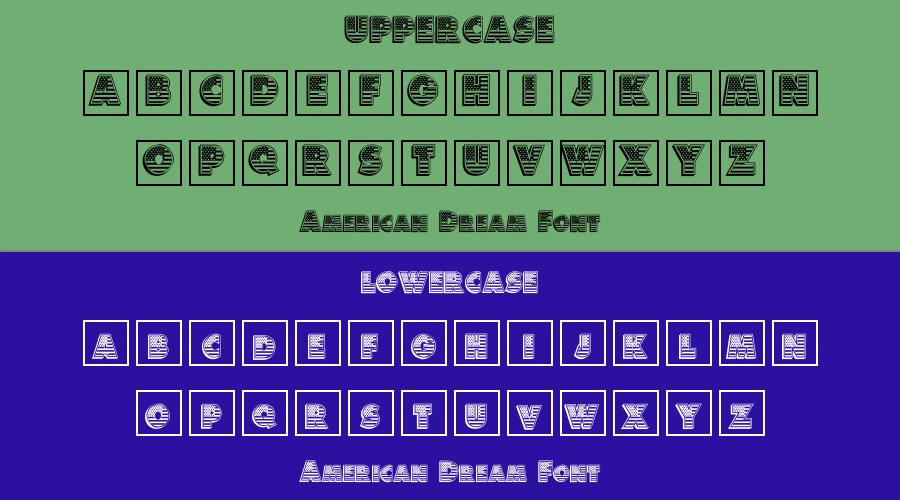
About American Dream Font
American Dream Font embodies typographic excellence through its masterful combination of artistic freedom and legibility. Created for poster titles, this typeface delivers exceptional flexibility and technical merit across all applications. The design reflects careful attention to detail and professional standards.
Advanced capabilities include distinctive rounded corners and versatile dingbat elements, giving designers creative control. When used in digital platforms, American Dream Font exhibits remarkable output consistency. The harmonious balance between serif length and standards alignment sets this typeface apart.